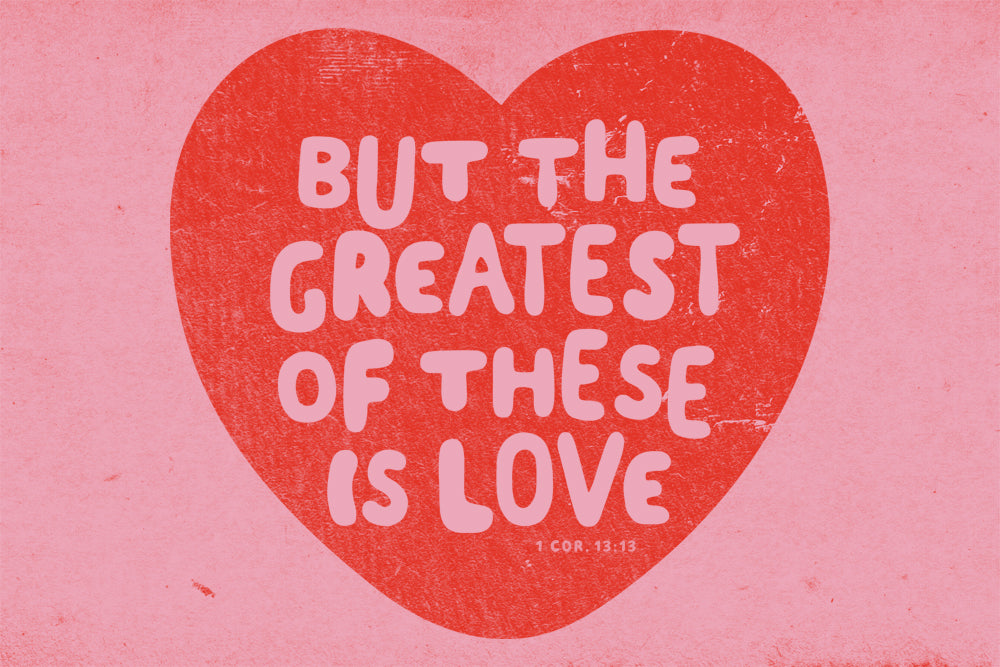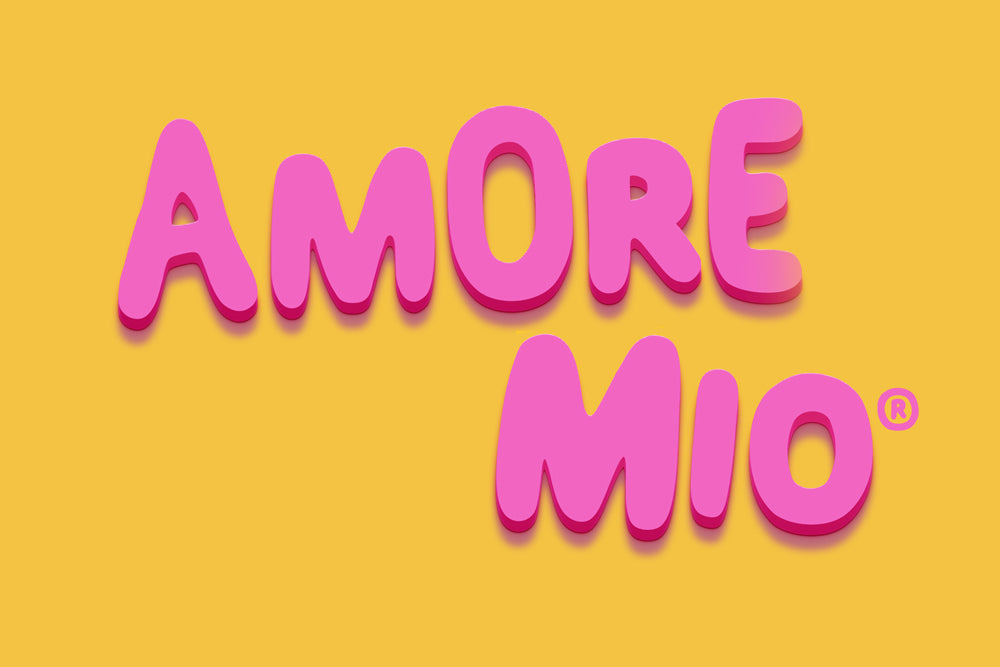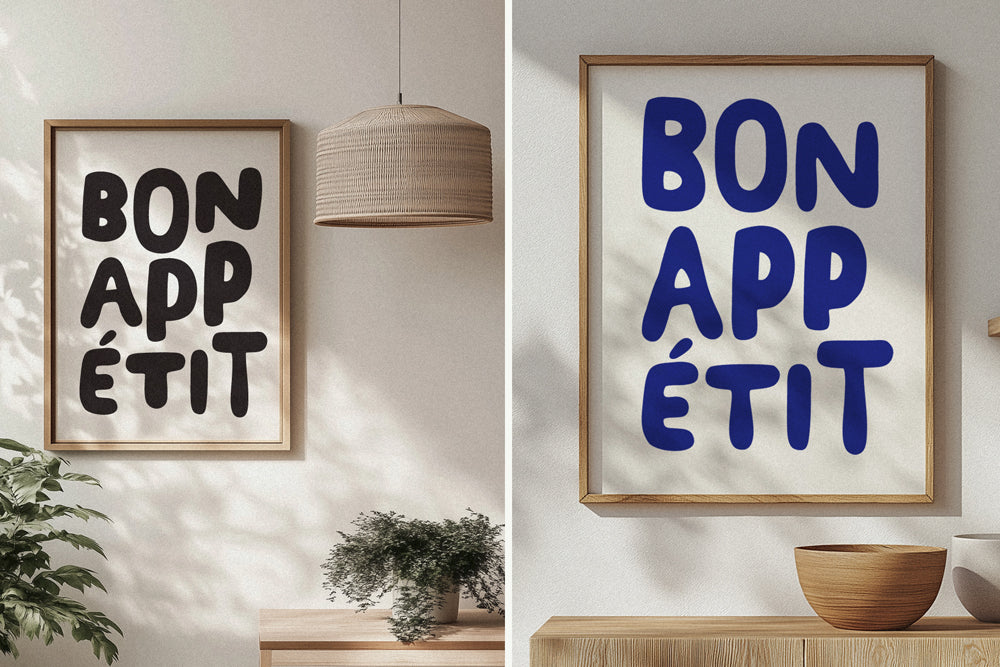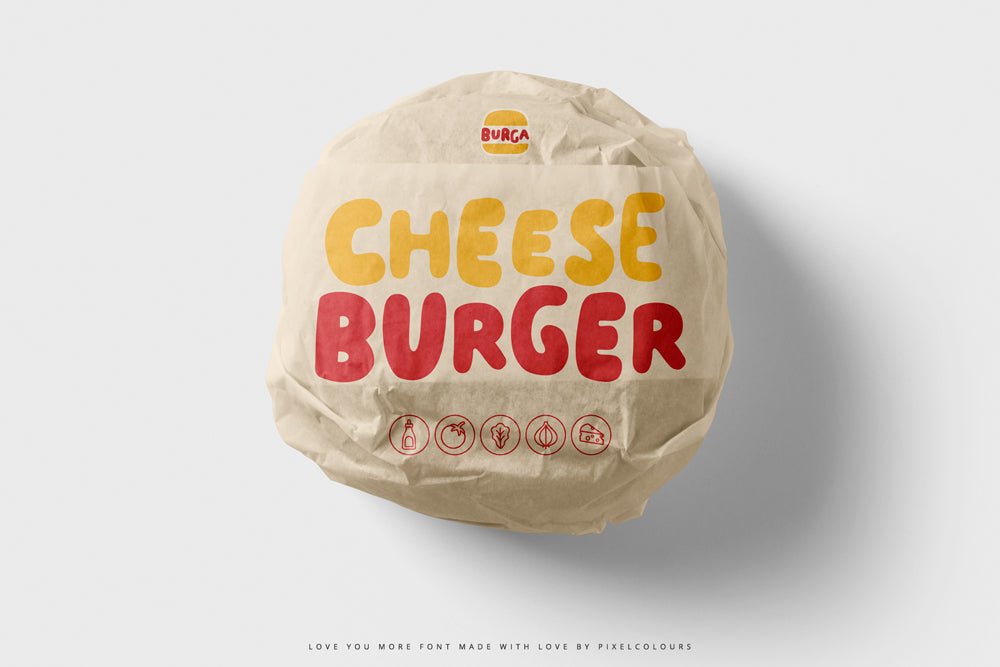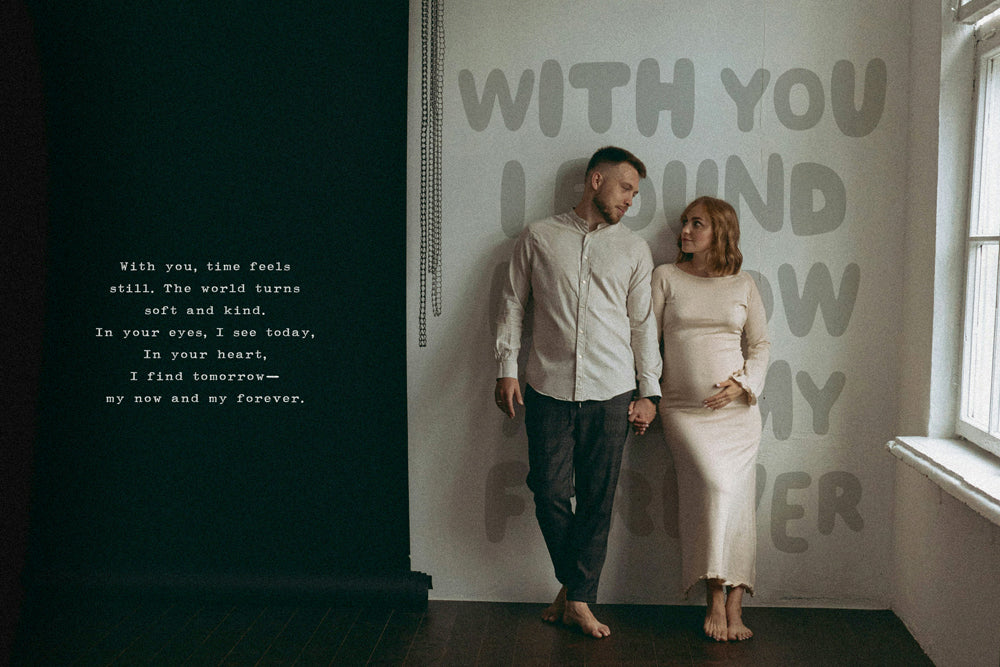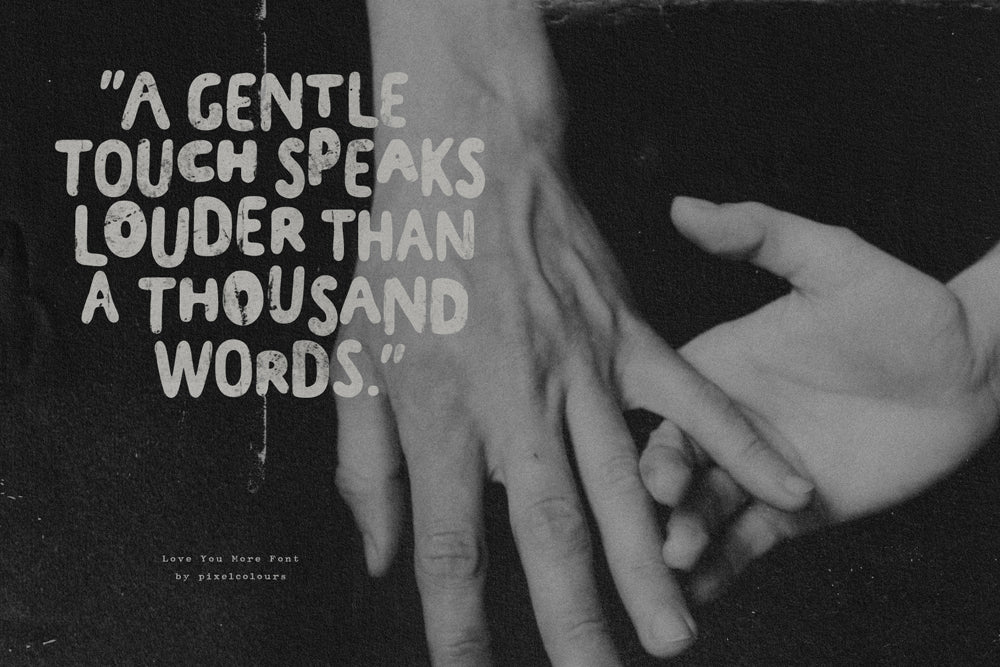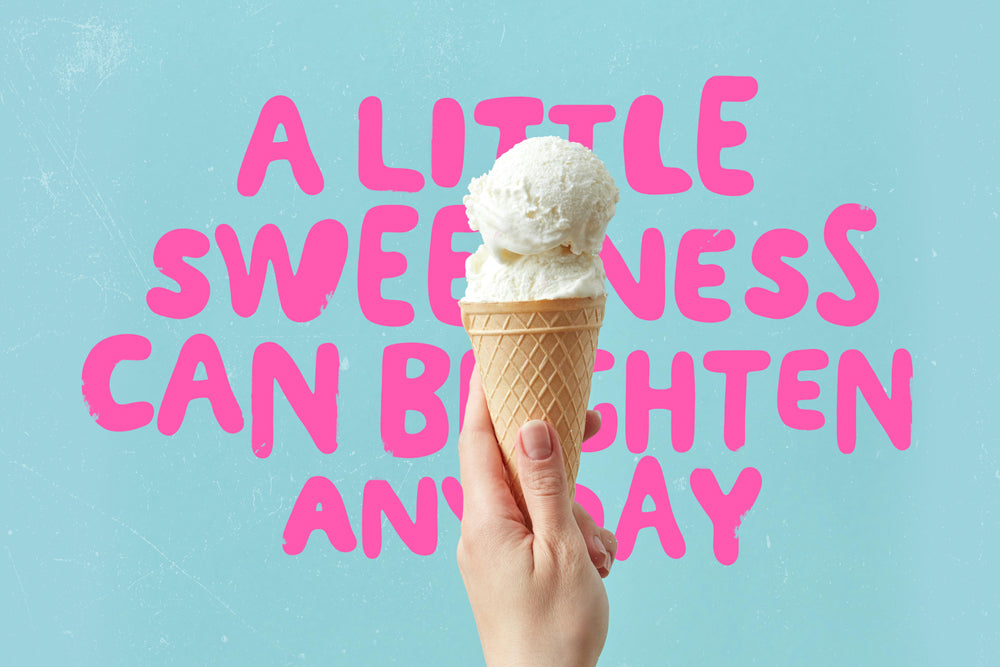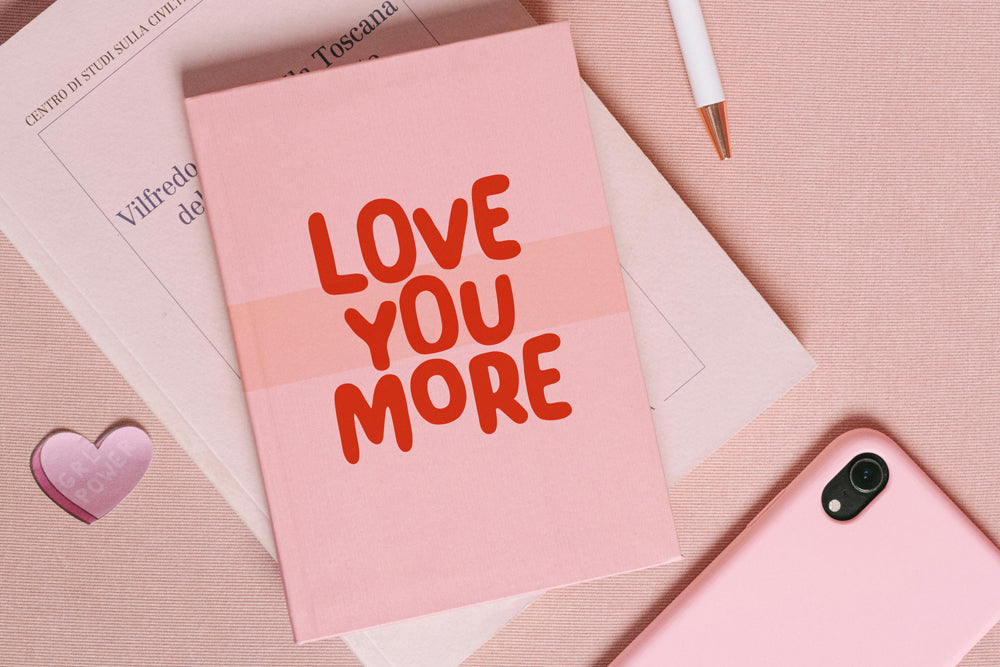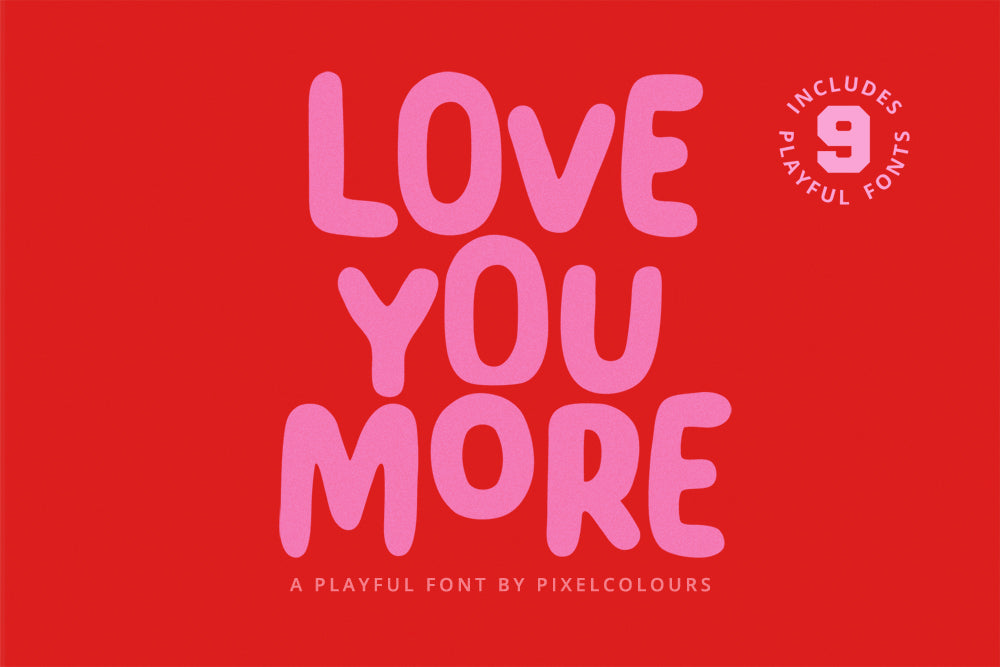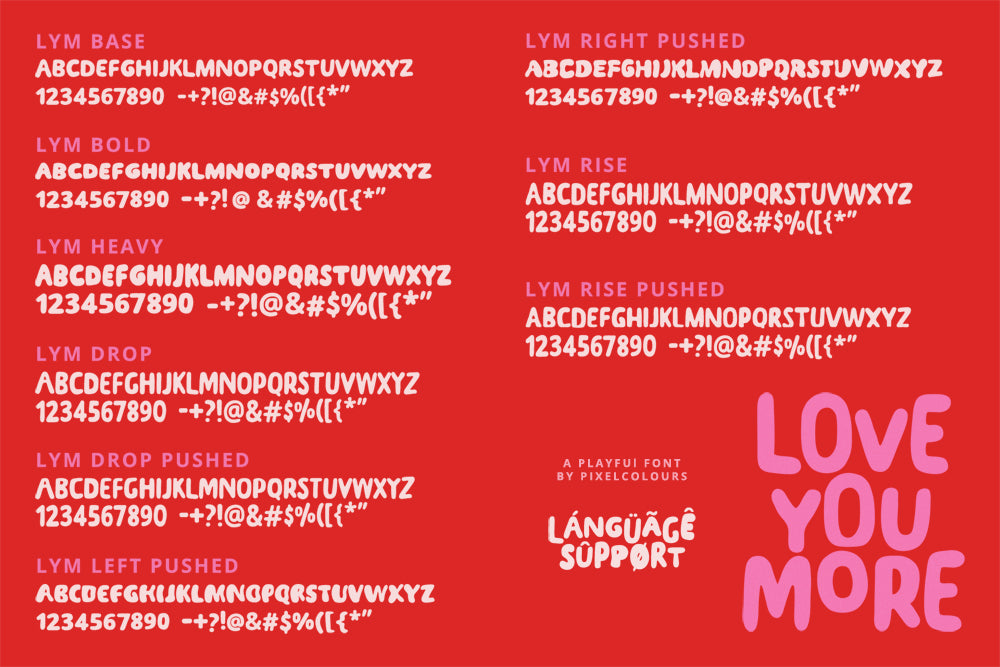
Love You More Playful Font
Love You More is a unique font family designed to give your designs rhythm, movement, and personality. Inspired in a playful style, it adds a modular, fun twist that allows each letter to interact with the others in surprising ways.
This display font family is perfect for projects that need a fresh, modern style full of personality — from creative posters to branding that stands out with a quirky and distinctive touch. Includes 9 variants that play with letter height, weight, and position so you can create text blocks or posters with dynamic style:
- LYM Base: the standard version with regular x-height and normal weight, perfect for balanced and readable text.
- LYM Bold: same height as Base but thicker weight for more presence without losing clarity.
- LYM Heavy: a thicker and taller version with a robust and friendly character.
- LYM Drop: a variant that drops down from the x-height toward the ascender.
- LYM Drop Pushed: a further pushed-down version of Drop.
- LYM Left Pushed: a variant that shift letters to the left.
- LYM Rise: a variant that rises from the x-height toward the ascender, adding dynamism.
- LYM Rise Pushed: the Rise but pushed-up from the baseline, adding a sinking effect. Great for use when tall letters are below.